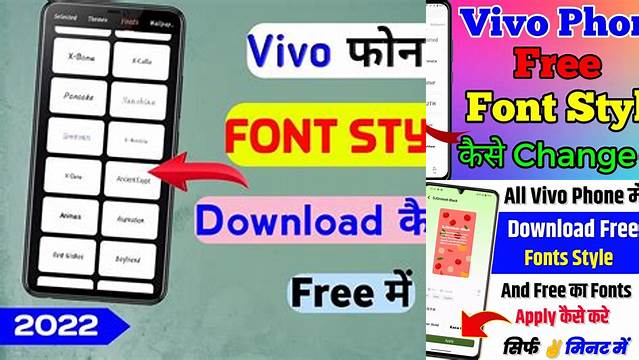
Vivo Free Font Style: Customize Your Phone!
Hey guys! Want to give your Vivo phone a fresh, new look? One of the coolest ways to do that is by changing up your font style. Thankfully, Vivo offers a bunch of options for customizing your fonts, and in this article, we're going to dive deep into everything you need to know about vivo free font styles. We'll cover where to find them, how to apply them, and even some tips for finding the perfect font to match your personality. Let's get started!
1. Understanding Font Customization on Vivo
So, what's the deal with font customization on Vivo phones? Well, Vivo understands that everyone has their own unique taste. That's why they've built in features that allow you to personalize almost every aspect of your phone, including the font. This means you can change the way text appears in your system menus, apps, and even your messages. Having the ability to personalize your vivo free font style is awesome because it lets you truly make your phone your own. It's like giving your phone a makeover without having to buy a whole new device! Plus, a new font can make reading on your phone a lot more enjoyable, especially if you pick one that's easy on the eyes.
5. Exploring Font Styles in the i Theme App
The i Theme app (or Vivo Themes app) is your best friend when it comes to finding fonts for your Vivo phone. This app is packed with all sorts of goodies, including a huge selection of font styles. To explore the font styles in the app, just open it up and navigate to the "Fonts" section. You'll find fonts organized into different categories, such as "Stylish," "Cute," and "Classic." You can also use the search bar to find specific fonts by name. The i Theme app also lets you preview fonts before you download them. Just tap on a font to see how it will look on your phone. This is a great way to make sure you're picking a font that you actually like. Plus, the app regularly updates its font selection, so there's always something new to discover. Using the i Theme app for your vivo free font style needs is a game changer!
6. Using Third-Party Apps for Font Customization
While the i Theme app is great, it's not the only option for customizing your fonts. There are also tons of third-party apps available on the Google Play Store that offer a wider variety of font styles and customization options. Some popular font apps include iFont, HiFont, and FontFix. These apps often have more advanced features than the i Theme app, such as the ability to create your own custom fonts or to adjust the font spacing and line height. However, it's important to be careful when using third-party apps. Some apps may contain malware or viruses, so it's always a good idea to read the reviews and check the app's permissions before downloading anything. Also, some apps may require root access to your phone, which can void your warranty. So, make sure you know what you're doing before granting an app root access. Finding the right vivo free font style with third-party apps can be a fun adventure!
7. Compatibility of Fonts with Different Vivo Models
One thing to keep in mind is that not all fonts are compatible with all Vivo models. Some fonts may only work on certain versions of Android, or on phones with specific screen resolutions. If you're not sure whether a font is compatible with your phone, it's always a good idea to try it out first. Download the font and try to apply it to your phone. If it doesn't work, you'll know right away. Also, keep in mind that some fonts may look different on different phones. This is because different phones have different screen densities and color calibrations. So, a font that looks great on one phone might not look so great on another phone. It's always a good idea to preview the font on your own phone before you commit to using it. The compatibility of vivo free font style across different models is crucial for a seamless experience.
8. Creating Your Own Custom Fonts
If you're feeling creative, you can even create your own custom fonts! There are a number of font creation tools available online, such as FontStruct and BirdFont. These tools allow you to design your own fonts from scratch, using a variety of shapes, lines, and curves. Creating your own font can be a fun and rewarding experience. It's a great way to express your creativity and to create a font that's truly unique. However, it's also a time-consuming process. It can take hours or even days to create a single font. Also, you'll need to have some technical skills to use the font creation tools. But if you're up for the challenge, creating your own font can be a really cool way to personalize your Vivo phone. Imagine having your very own vivo free font style!
9. The Impact of Font Choice on Readability
Did you know that your font choice can actually impact how easy it is to read text on your phone? It's true! Some fonts are more legible than others. Fonts with clean, simple designs are generally easier to read than fonts with ornate or decorative designs. Also, the font size and spacing can affect readability. If the font is too small or the spacing is too tight, it can be difficult to read. When choosing a font, it's important to consider readability. Pick a font that's easy on the eyes and that doesn't strain your vision. You might even want to try out a few different fonts to see which one you find the most comfortable to read. After all, you'll be staring at your phone screen for hours every day, so you want to make sure you're using a font that's easy to read. Optimize your reading experience with the right vivo free font style.
10. Font Size and Accessibility Considerations
Speaking of readability, it's also important to consider font size and accessibility. Not everyone has perfect vision, so it's important to choose a font size that's comfortable for everyone to read. Vivo phones allow you to adjust the font size in the settings menu. You can make the font larger or smaller, depending on your needs. Also, some fonts are more accessible than others. Fonts with good contrast and clear letterforms are generally easier to read for people with visual impairments. If you're concerned about accessibility, you might want to try out a few different fonts and see which one works best for you. You can also enable accessibility features on your phone, such as high-contrast text or text-to-speech. Thinking about accessibility when choosing a vivo free font style makes a big difference.
11. Font Pairing: Combining Different Font Styles
Want to take your font customization to the next level? Try font pairing! Font pairing is the art of combining different font styles to create a visually appealing and harmonious design. For example, you might pair a bold, sans-serif font for headings with a classic, serif font for body text. The key to successful font pairing is to choose fonts that complement each other. You don't want to choose fonts that clash or compete for attention. There are a number of resources available online that can help you with font pairing. You can find websites that suggest font pairings or that offer tips on how to choose fonts that work well together. Experimenting with font pairing can be a fun way to create a unique and stylish look for your Vivo phone. Get creative with your vivo free font style by pairing different fonts!
12. The Psychology of Fonts: Choosing the Right Mood
Believe it or not, fonts can actually evoke different emotions and moods. Some fonts are playful and fun, while others are serious and professional. When choosing a font, it's important to consider the message you want to convey. If you want to create a fun and playful atmosphere, you might choose a whimsical or cartoonish font. If you want to create a professional and trustworthy impression, you might choose a classic and elegant font. Think about the personality you want to project and choose a font that matches that personality. You might even want to have different fonts for different occasions. For example, you might use a fun font for personal messages and a professional font for work emails. Match your mood with the perfect vivo free font style.
13. Monospace Fonts: A Retro Aesthetic
Want to give your Vivo phone a retro vibe? Try using a monospace font! Monospace fonts are fonts where every character takes up the same amount of horizontal space. This gives them a distinctive, typewritery look. Monospace fonts were commonly used on typewriters and early computers, so they have a nostalgic feel. They can be a fun way to add some personality to your phone. However, monospace fonts aren't always the easiest to read. Because every character takes up the same amount of space, the text can sometimes look a little cramped. So, if you're going to use a monospace font, make sure to choose one that's still legible. Embrace the retro look with a unique vivo free font style.
14. Serif vs. Sans-Serif: Understanding the Differences
When it comes to fonts, there are two main categories: serif and sans-serif. Serif fonts have small decorative strokes at the ends of the letters, while sans-serif fonts do not. Serif fonts are often considered to be more classic and traditional, while sans-serif fonts are often considered to be more modern and clean. The choice between serif and sans-serif fonts is largely a matter of personal preference. Some people find serif fonts easier to read, while others prefer the clean look of sans-serif fonts. Experiment with both types of fonts to see which one you like best. There are tons of serif and sans-serif fonts available for Vivo phones, so you're sure to find one that you love. Understand the difference to pick the best vivo free font style.
15. Downloading Fonts from Online Resources
As mentioned earlier, you can also download fonts from online resources. There are tons of websites that offer free fonts for download. However, it's important to be careful when downloading fonts from the internet. Some websites may contain malware or viruses, so it's always a good idea to scan the files with an antivirus program before installing them on your phone. Also, make sure you're downloading fonts from a reputable source. Look for websites that have good reviews and that are known for providing high-quality fonts. Once you've downloaded a font, you'll need to install it on your phone before you can use it. The installation process varies depending on the type of font file, but it usually involves copying the font file to a specific folder on your phone and then selecting the font in your phone's settings. Stay safe when downloading your vivo free font style from online sources.
16. Maintaining Font Consistency Across Apps
One thing that can be annoying is when different apps on your phone use different fonts. This can make your phone look inconsistent and disorganized. To maintain font consistency across apps, you can try to use the same font for all of your apps. Some apps allow you to customize the font settings, so you can choose the font you want to use. Other apps may use the system font, which is the default font for your phone. If you set your system font to your favorite font, then all of your apps that use the system font will automatically use that font. This is a great way to ensure that all of your apps have a consistent look and feel. Keep things consistent with your chosen vivo free font style.
17. Font Licensing: Understanding Usage Rights
Before you start using a font, it's important to understand its licensing terms. Fonts are often protected by copyright, which means that you need to have permission from the copyright holder to use them. Some fonts are free for personal use, while others require a commercial license if you want to use them for business purposes. Make sure you read the font's licensing terms before you start using it. You can usually find the licensing terms on the website where you downloaded the font. If you're not sure about the licensing terms, it's always a good idea to contact the copyright holder and ask for clarification. Understanding font licensing helps you use your vivo free font style legally.
18. Backing Up Your Favorite Fonts
If you've found some fonts that you really love, it's a good idea to back them up. This way, if you ever lose your phone or have to reset it, you won't lose your favorite fonts. You can back up your fonts by copying the font files to a safe place, such as your computer or a cloud storage service. Make sure you keep the font files organized so you can easily find them when you need them. You can also use a font management app to back up your fonts. These apps can help you organize your fonts and keep them safe. Protecting your fonts is crucial, so back up your favorite vivo free font style today.
19. Updating Your Phone's Font Library
From time to time, your phone's font library may need to be updated. This is because new fonts are constantly being created, and older fonts may become outdated or incompatible with newer versions of Android. To update your phone's font library, you can check for updates in the Vivo Themes app or in the Google Play Store. You can also download new fonts from online resources and install them on your phone. Keeping your font library up-to-date ensures that you have access to the latest and greatest fonts. Plus, updating your font library can sometimes fix bugs or compatibility issues with existing fonts. Always keep your vivo free font style library updated for the best experience.
20. Font Styles for Different Languages
If you use your Vivo phone in multiple languages, you may want to choose different fonts for each language. This is because some fonts are better suited for certain languages than others. For example, some fonts may not support certain characters or symbols that are used in a particular language. When choosing a font for a specific language, make sure the font supports all of the characters and symbols that are used in that language. You can also look for fonts that are specifically designed for that language. These fonts are often optimized for readability and visual appeal. Choose the right vivo free font style for each language you use.
21. Using Fonts to Enhance UI Design
Fonts play a crucial role in user interface (UI) design. The right font can make your phone's interface look more appealing, professional, and user-friendly. When choosing fonts for your UI, consider the overall design aesthetic of your phone. If you want to create a modern and minimalist look, you might choose a clean and simple sans-serif font. If you want to create a more classic and elegant look, you might choose a serif font. Also, consider the readability of the font. Choose a font that's easy to read, even at small sizes. Elevate your phone's design with the perfect vivo free font style for UI.
22. Exploring Calligraphy-Inspired Fonts
For a touch of elegance and sophistication, consider using calligraphy-inspired fonts. These fonts mimic the flowing strokes and flourishes of traditional calligraphy. They can add a touch of personality and charm to your phone's interface. However, calligraphy-inspired fonts aren't always the easiest to read. So, it's important to choose one that's still legible, especially for body text. You can use calligraphy-inspired fonts for headings, titles, or other decorative elements. They can also be a fun way to personalize your messages and social media posts. Add elegance with a calligraphy-inspired vivo free font style.
23. The Future of Font Technology on Smartphones
Font technology is constantly evolving. In the future, we can expect to see even more advanced font features on smartphones. For example, we may see fonts that can dynamically adjust their size and spacing based on the content being displayed. We may also see fonts that can adapt to different lighting conditions. These advancements in font technology will make our phones even more user-friendly and visually appealing. Stay tuned for the exciting future of fonts on smartphones! The future is bright for innovative vivo free font style options.
24. Legal Considerations for Distributing Custom Fonts
If you plan to create and distribute your own custom fonts, it's important to be aware of the legal considerations involved. As mentioned earlier, fonts are often protected by copyright. This means that you need to have permission from the copyright holder to distribute them. You may also need to comply with other legal requirements, such as trademark laws. Before you start distributing your custom fonts, it's a good idea to consult with an attorney to make sure you're complying with all applicable laws and regulations. Protect your creations: understand the legalities of distributing your vivo free font style.
25. How Custom Fonts Can Improve Branding
If you use your Vivo phone for business purposes, custom fonts can be a powerful branding tool. By using a consistent font across all of your marketing materials, you can create a strong and recognizable brand identity. You can use custom fonts on your website, social media profiles, and even in your email signatures. This will help to reinforce your brand message and make your business stand out from the competition. Custom fonts can also help to create a more professional and trustworthy impression. Boost your brand with a unique and memorable vivo free font style.
26. Font Selection Tips for Social Media Content
When creating content for social media, it's important to choose fonts that are visually appealing and easy to read. Social media users often scroll through their feeds quickly, so you need to grab their attention with eye-catching fonts. Use bold fonts for headings and titles to make them stand out. Choose fonts that are legible, even at small sizes. Also, consider the overall tone and style of your social media content. If you're creating fun and playful content, you might choose a whimsical or cartoonish font. If you're creating professional and informative content, you might choose a more classic and elegant font. Maximize engagement with strategic vivo free font style choices on social media.
27. Optimizing Fonts for Different Screen Resolutions
Different Vivo phones have different screen resolutions. This means that a font that looks great on one phone might not look so great on another phone. To optimize fonts for different screen resolutions, you can use font scaling techniques. Font scaling involves adjusting the size and spacing of the font to make it look good on different screens. Some font editing tools offer font scaling features. You can also use CSS (Cascading Style Sheets) to scale fonts on websites and web applications. Ensure your font looks perfect on every device with proper vivo free font style optimization.
28. The Impact of Color on Font Perception
The color of a font can have a significant impact on how it is perceived. Different colors can evoke different emotions and moods. For example, black fonts are often associated with seriousness and formality, while white fonts are often associated with cleanliness and simplicity. When choosing a font color, consider the overall design aesthetic of your phone. If you want to create a bold and vibrant look, you might choose a bright and colorful font. If you want to create a more subtle and sophisticated look, you might choose a more muted and neutral font. Combine color and font for a powerful visual statement with your vivo free font style.
29. Using Emojis and Special Characters with Custom Fonts
Emojis and special characters can add personality and flair to your text messages and social media posts. When using emojis and special characters with custom fonts, it's important to make sure they are compatible. Some fonts may not support certain emojis or special characters. If this happens, the emojis or special characters may not display correctly. To avoid this problem, you can use a font that specifically supports emojis and special characters. There are many fonts available that include a full range of emojis and special characters. Add personality to your phone with compatible emojis and your favorite vivo free font style.
30. Advanced Typography Techniques for Vivo Phones
Want to take your font customization skills to the next level? Try learning some advanced typography techniques. Typography is the art and technique of arranging type to make written language legible, readable, and appealing. Some advanced typography techniques include kerning, tracking, and leading. Kerning involves adjusting the spacing between individual letters to improve readability. Tracking involves adjusting the overall spacing between all of the letters in a word or phrase. Leading involves adjusting the spacing between lines of text. Mastering these techniques can help you create visually stunning and highly readable text on your Vivo phone. Become a typography master with advanced techniques and your unique vivo free font style!